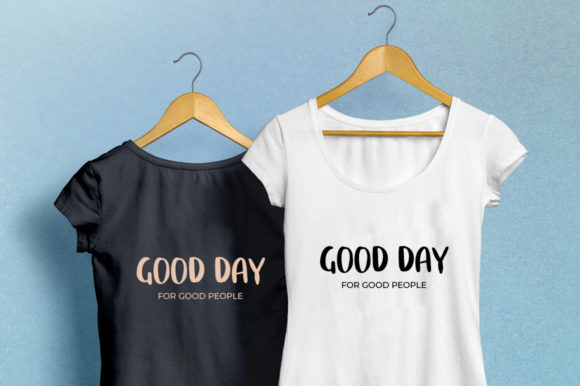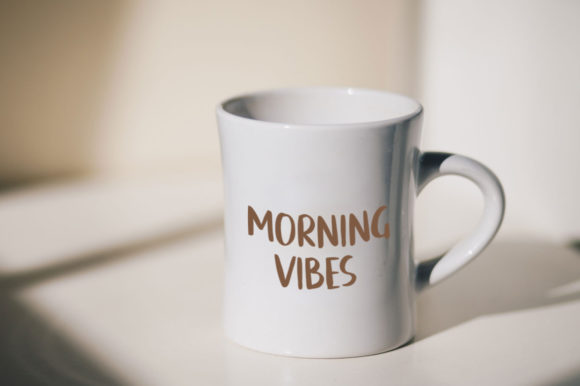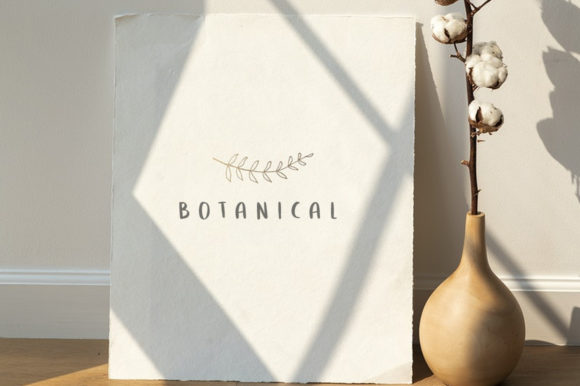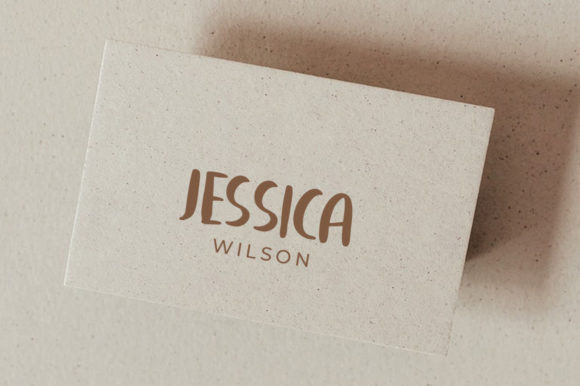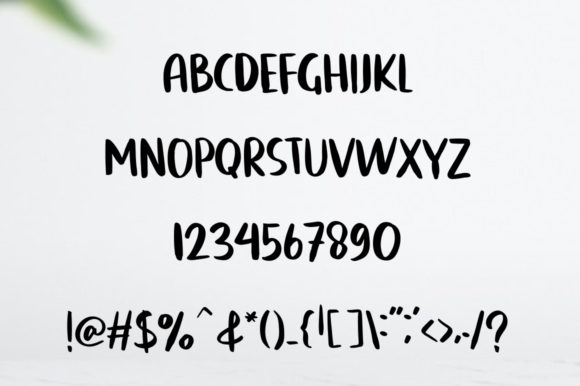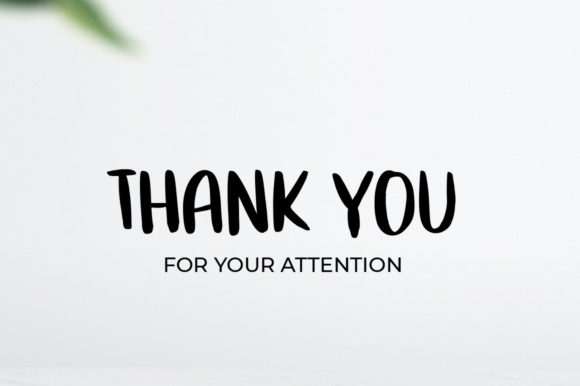
Introduction to Macho Weak Font Font
Fonts play a crucial role in design, and the Macho Weak Font font is a typeface that brings both character and versatility to any project. Whether you’re working on a branding project, a website, or a print design, the Macho Weak Font font offers a unique style that can elevate your work.
Macho Weak is a gorgeous and bold handwritten font, crafted to give your headlines and logotype projects a stylish touch.
This font reads as strong, confident, and dynamic, so add it to your designs and you will cherish the final result .
Key Features of Macho Weak Font Font
Why Choose Macho Weak Font Font?
The Macho Weak Font font is more than just a typeface – it’s a design tool that helps you communicate your message with style and clarity. Its unique character set and versatile design make it suitable for a wide range of applications, from elegant invitations to bold headlines.
With its carefully crafted letterforms and balanced proportions, the Macho Weak Font font ensures readability and visual appeal across all mediums.
What makes Macho Weak Font font special?
The Macho Weak Font font stands out with its unique design, exceptional readability, and versatility across various design applications.